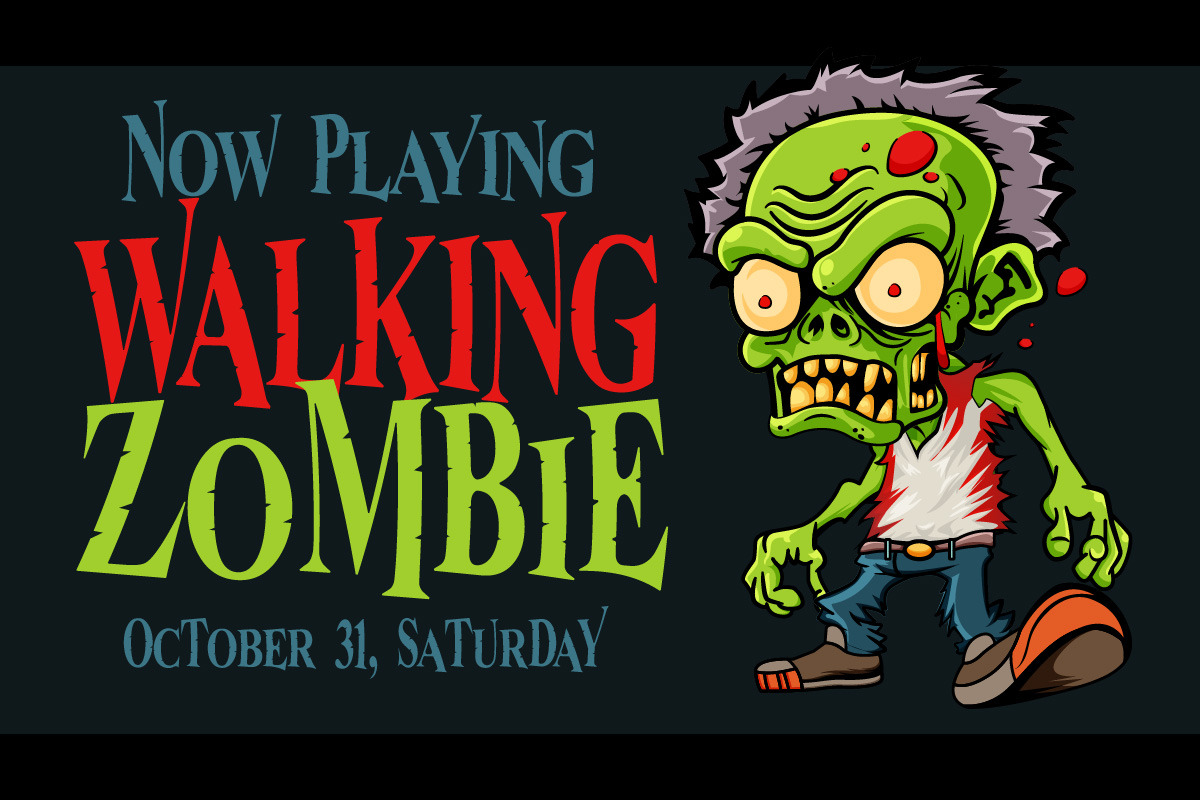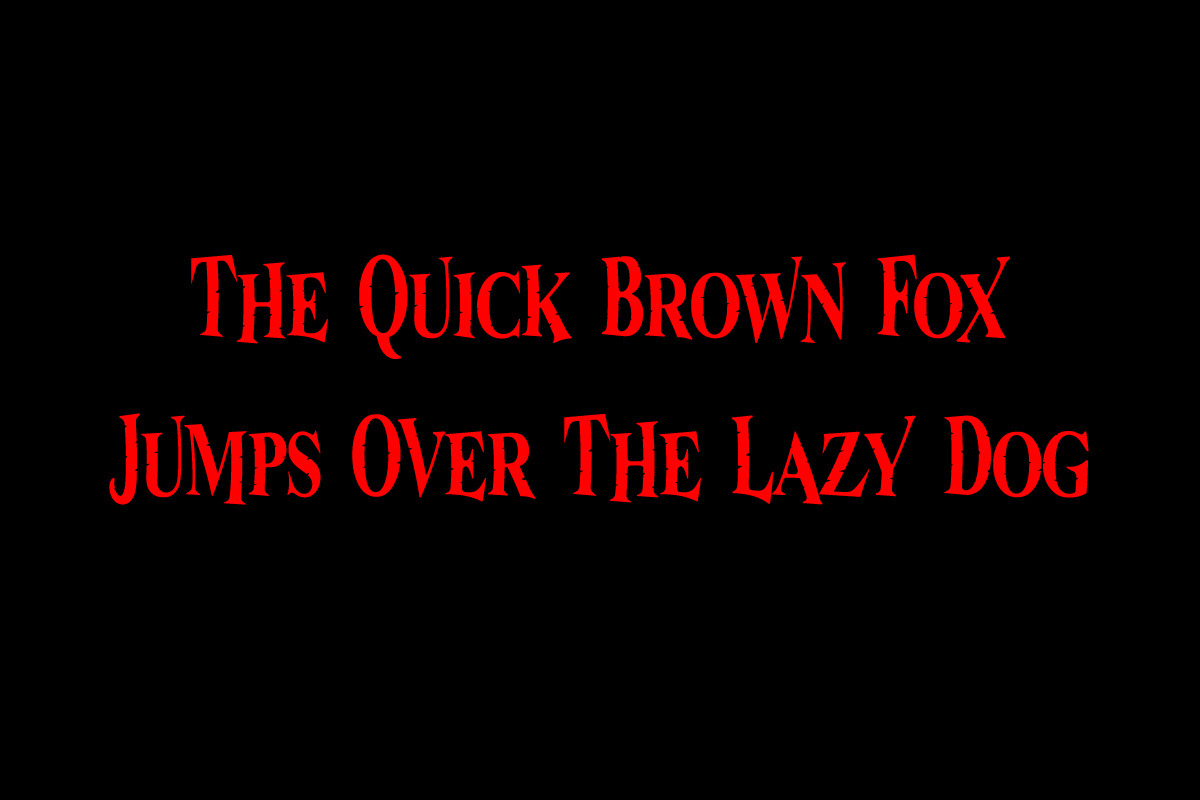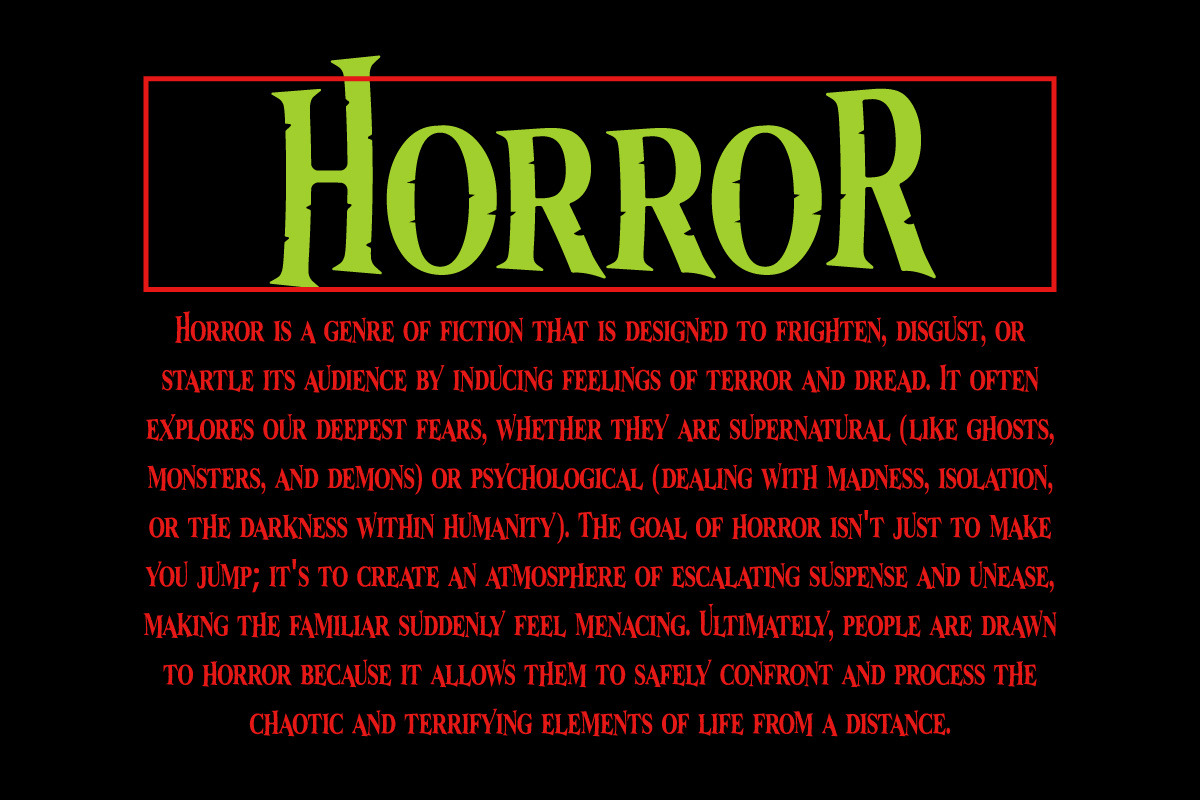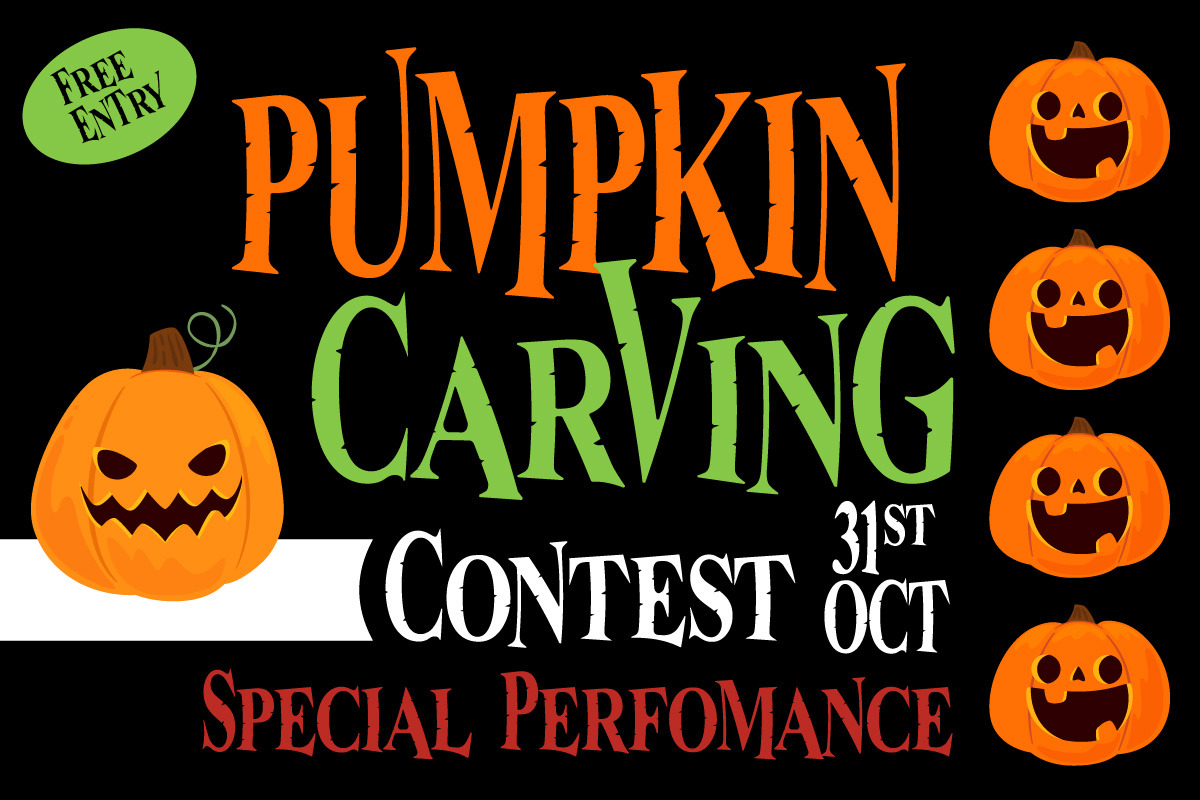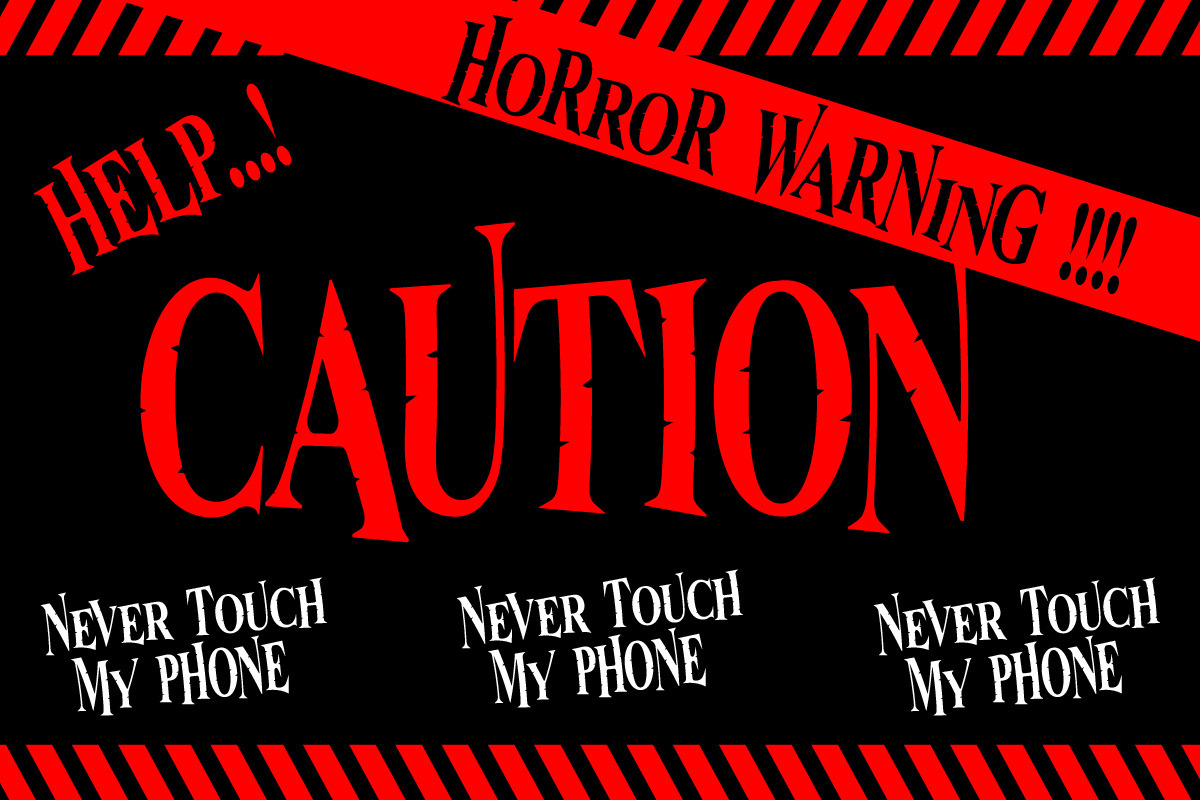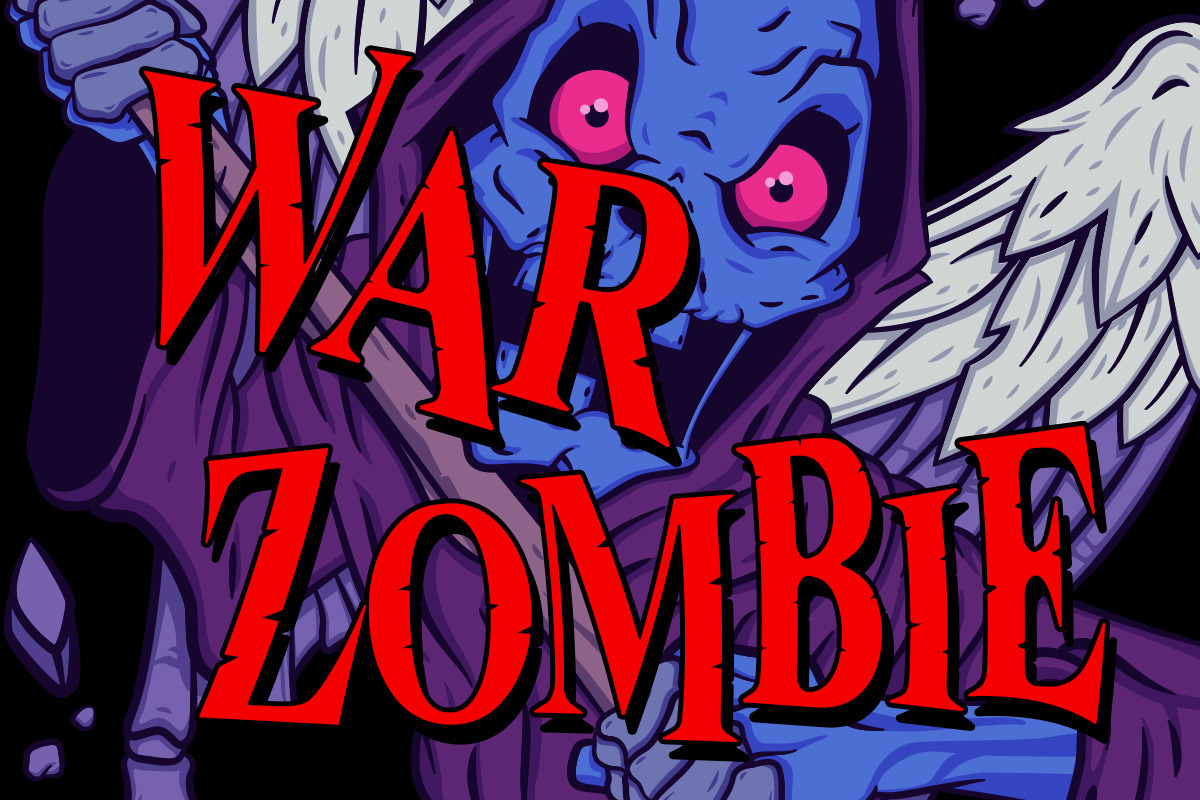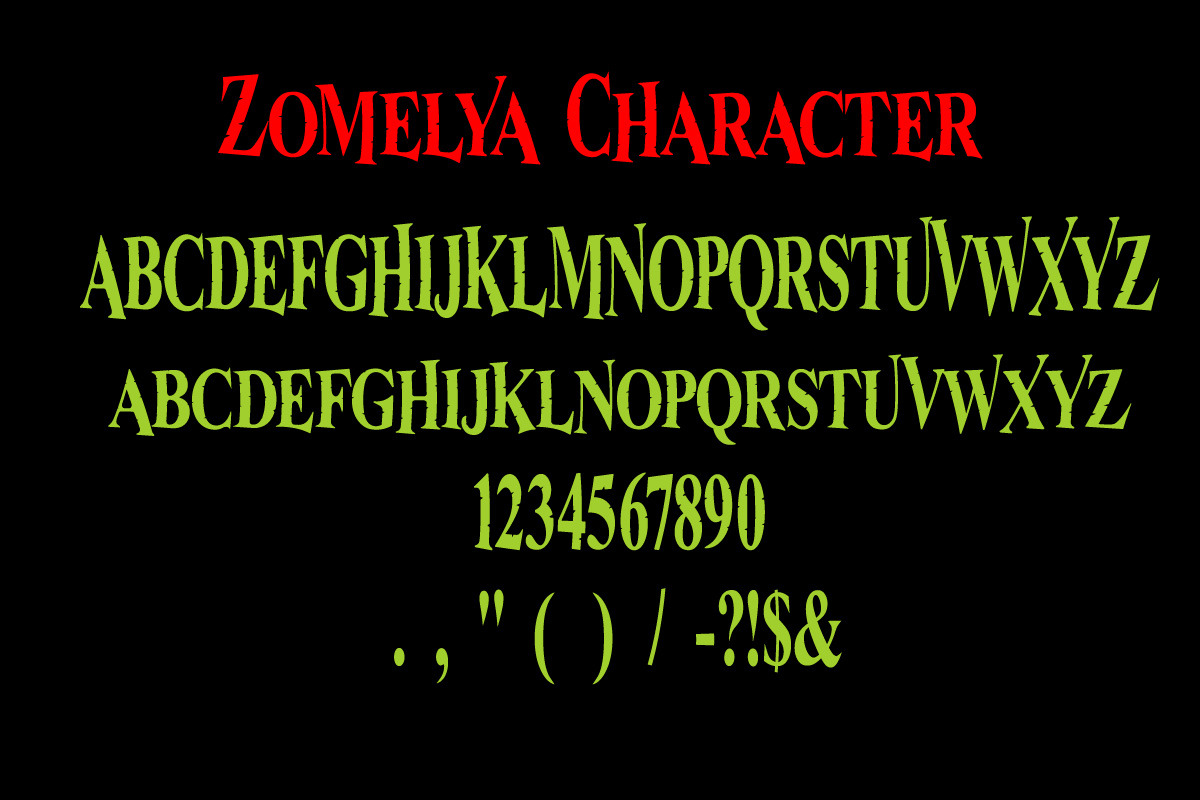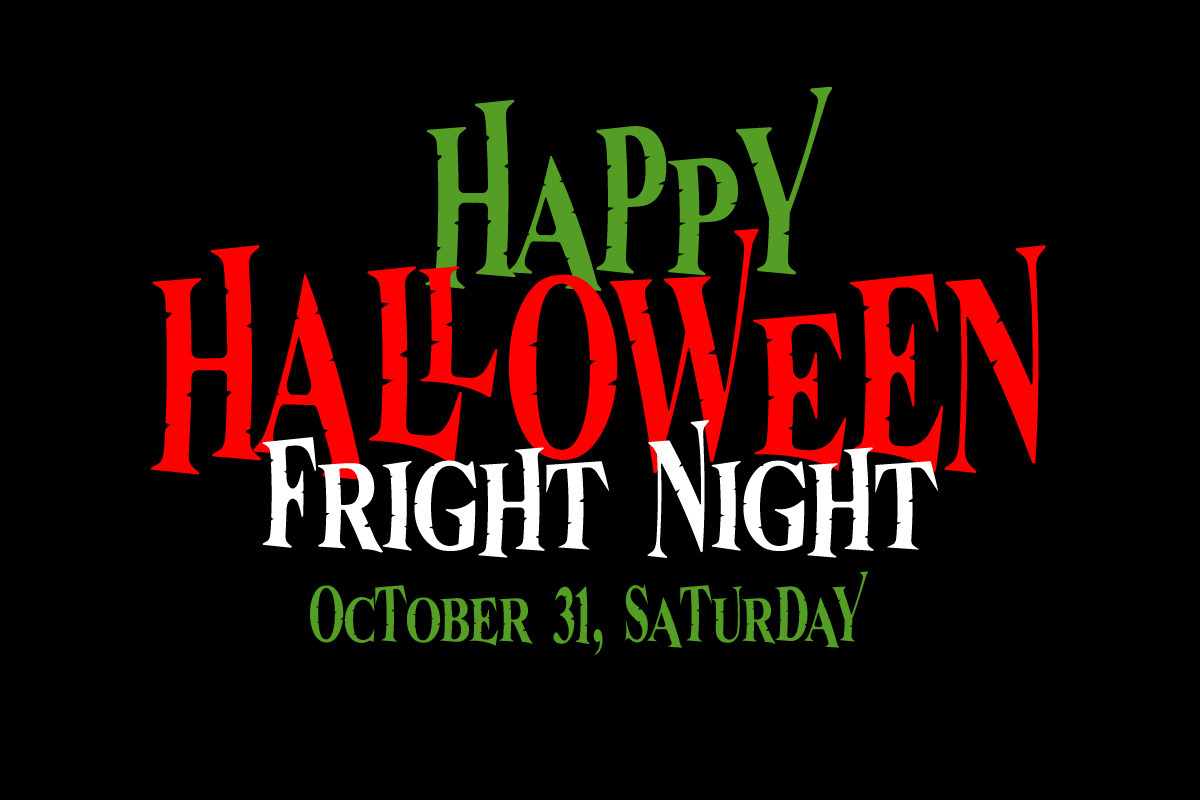
Zomelya Halloween Horror Display
Zomelya Horror Display Typeface
Horror Font For your Design Dare to use Zomelya and make your designs hauntingly good!